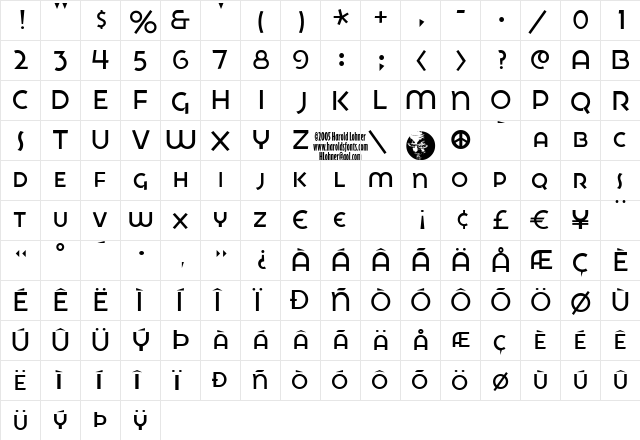
GoyaLight Regular
Design Context for GoyaLight Typeface
GoyaLight takes a measured approach to typography — its balanced proportions and neutral character make it a reliable workhorse for both digital and print work. Its slender proportions lend an understated elegance to any composition.